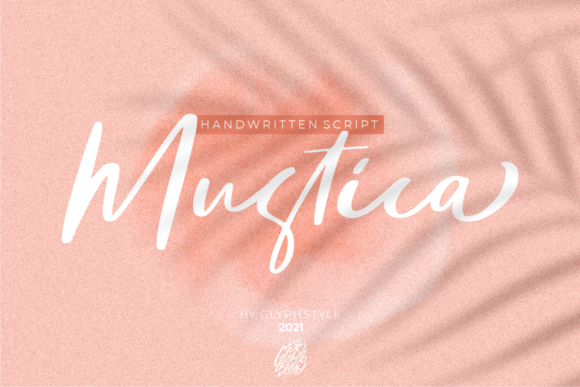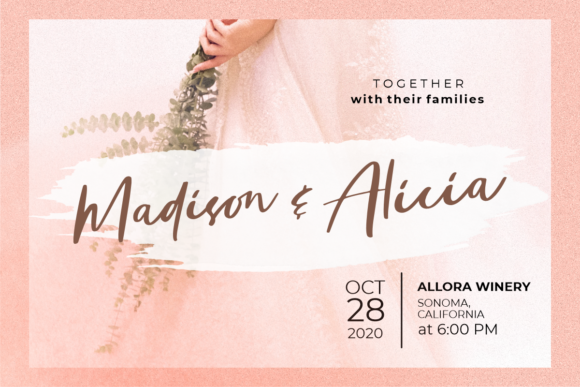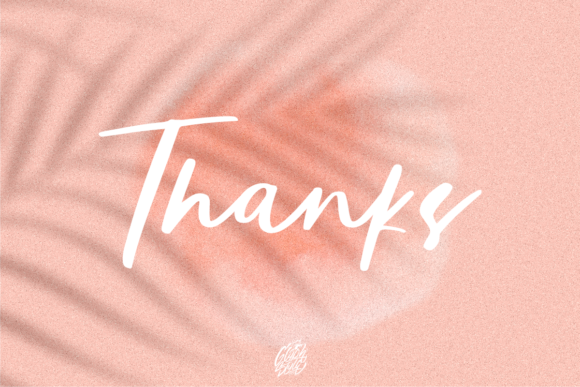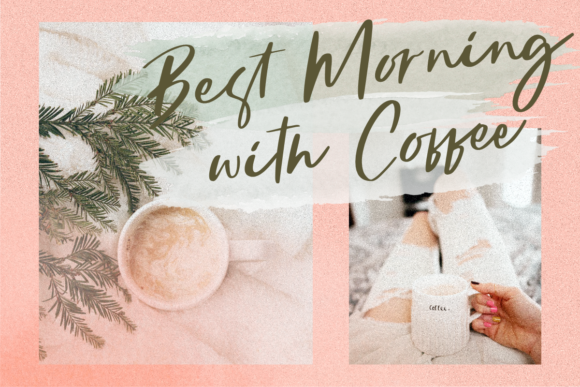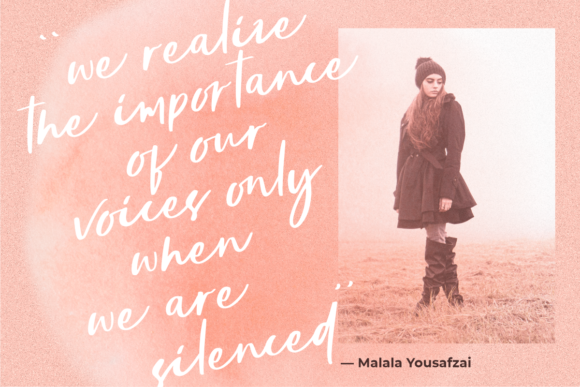
About Mustica Font
Mustica is a distinct and relaxed handwritten font. Its trendy letters make this font a masterpiece. Fall in love with its incredibly versatile style and use it to create spectacular designs! This font is PUA encoded which means you can access all of the glyphs and swashes with ease!